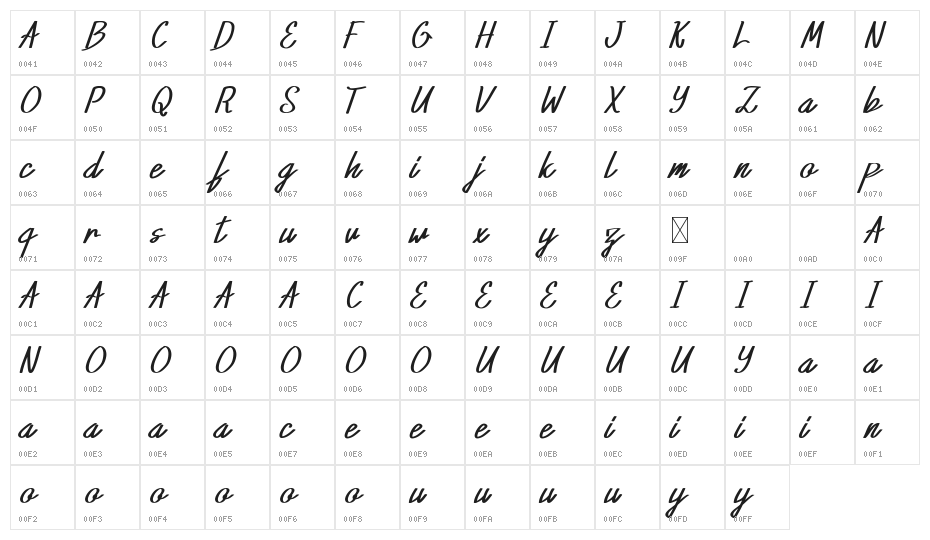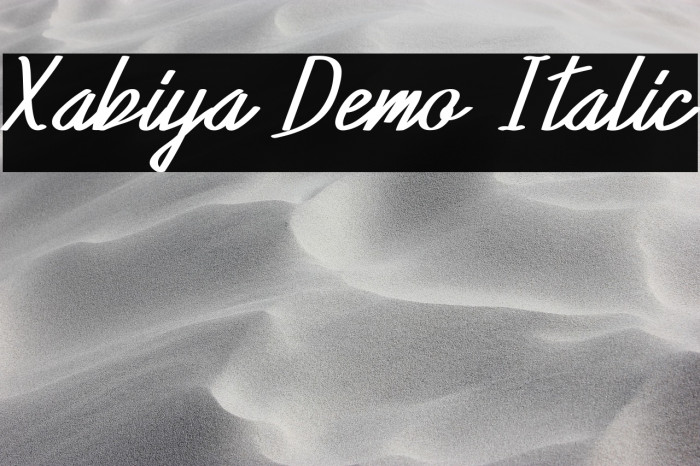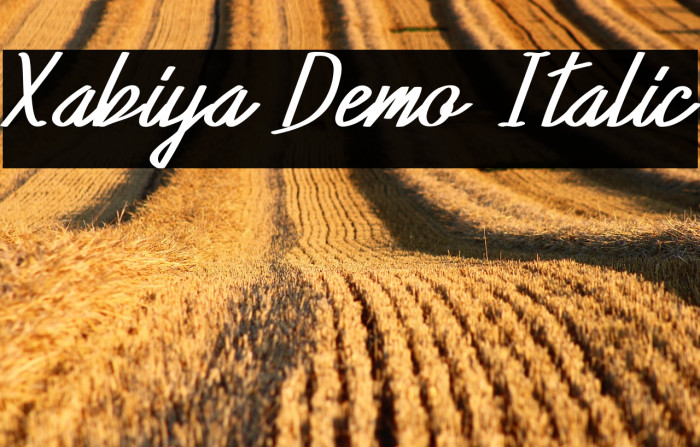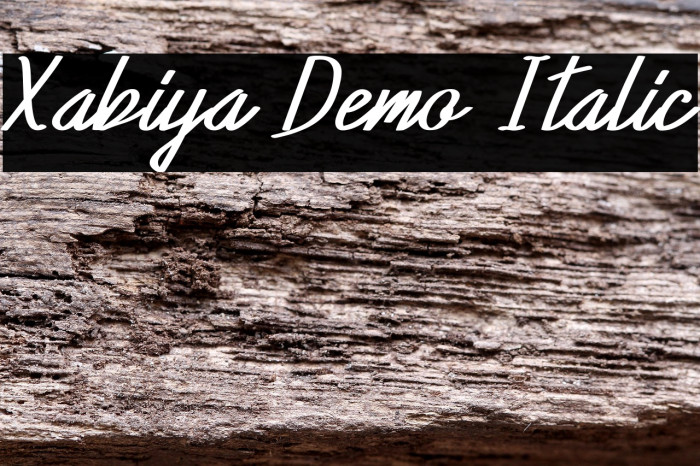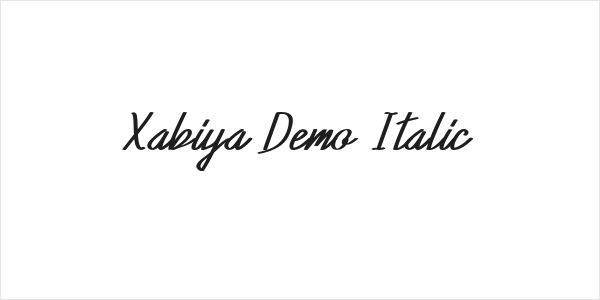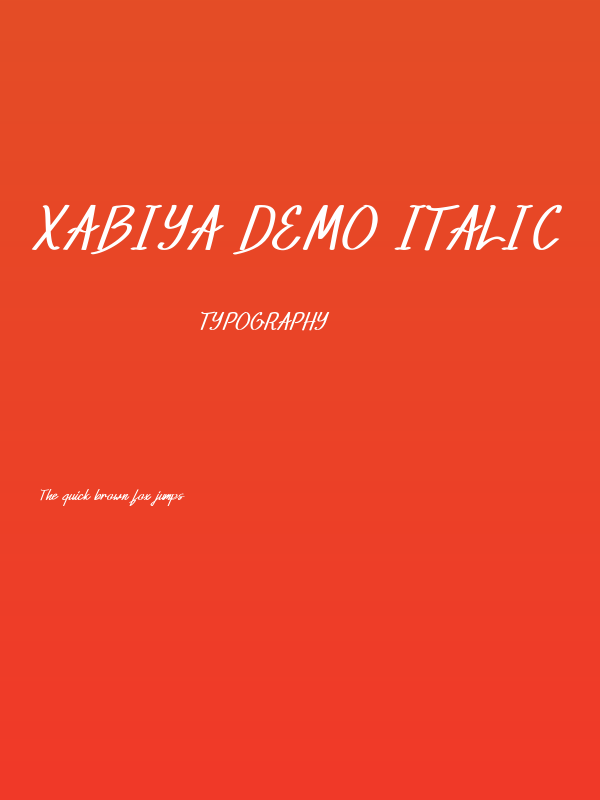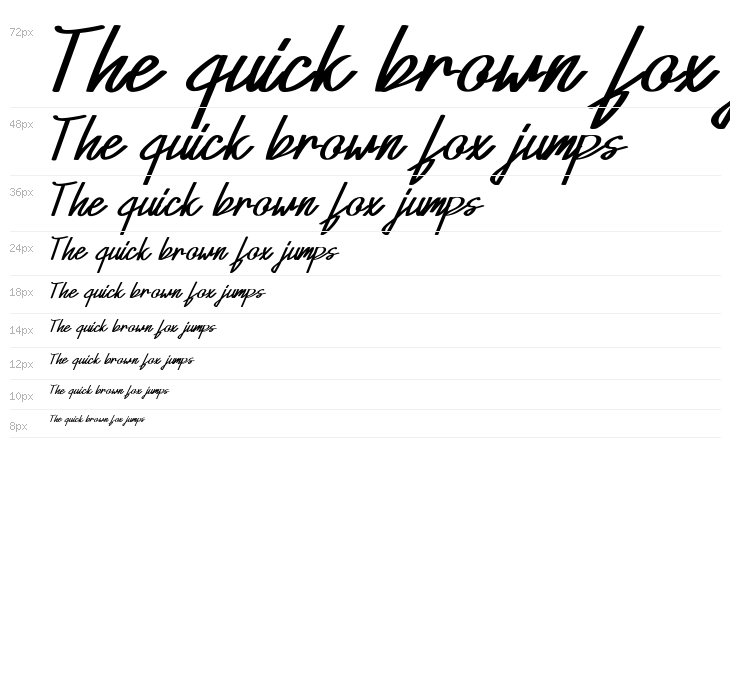
Xabiya Demo Italic Font
Xabiya Demo Italic Description
This font features a dynamic and fluid script style, characterized by its elegant and flowing letterforms. The uppercase letters are tall and slightly slanted, giving a sense of movement and grace. The lowercase letters are more compact, with smooth curves and a consistent slant that enhances the overall fluidity. The font includes a full set of uppercase and lowercase letters, numbers, and a selection of special characters. Its italic nature adds a touch of sophistication, making it suitable for projects that require a personal or artistic touch.
| Overall Style | Elegant, Artistic |
| Proposed Projects | Ideal for wedding invitations, greeting cards, branding, and artistic projects that require a personal touch. |